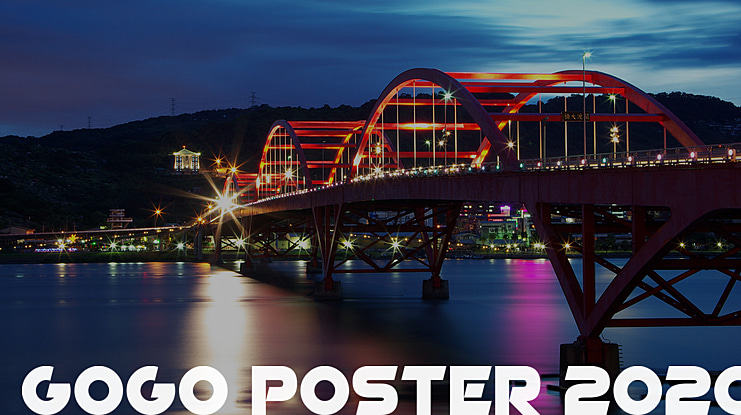
GoGo Poster 2020 Font Family
GoGo Poster 2020 V1.0
A new take on my popular GoGo Poster Punch font. 2020 includes subtle angles, various cut aways and character tweaks, to modernize and maximize visual appeal and impact.